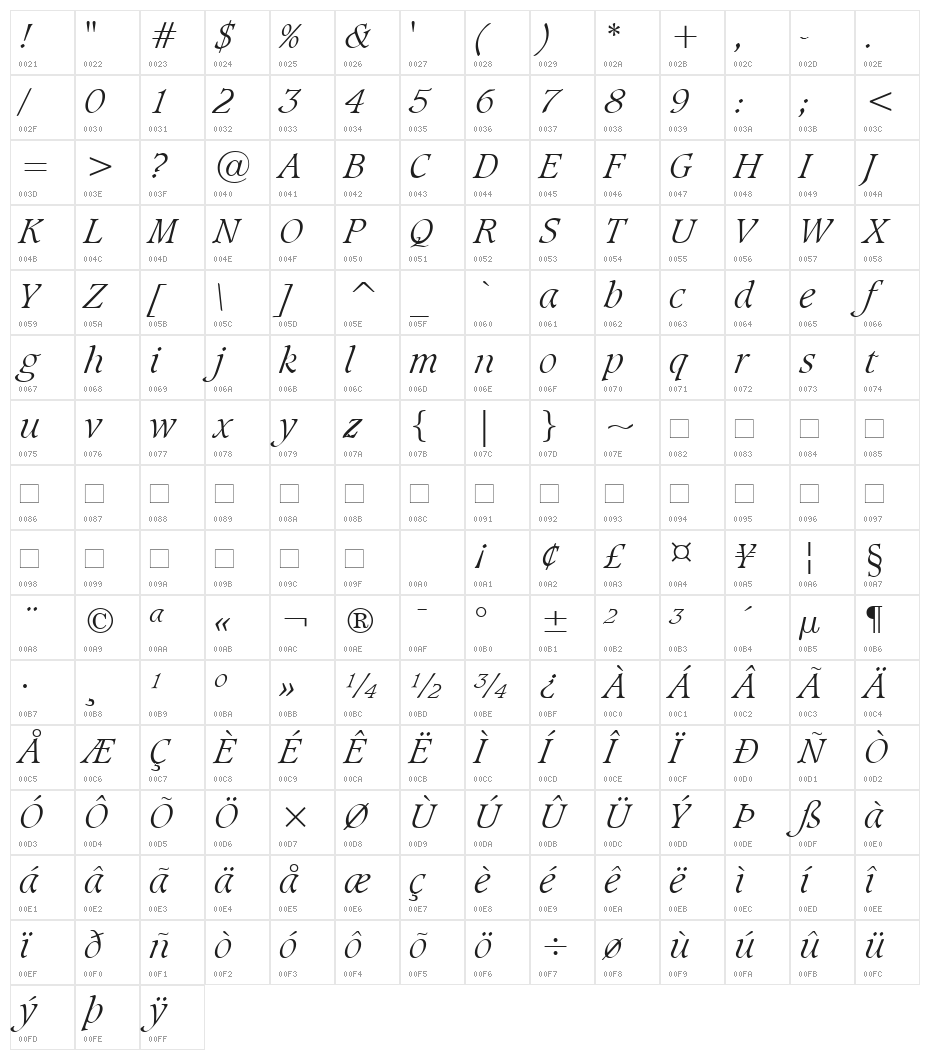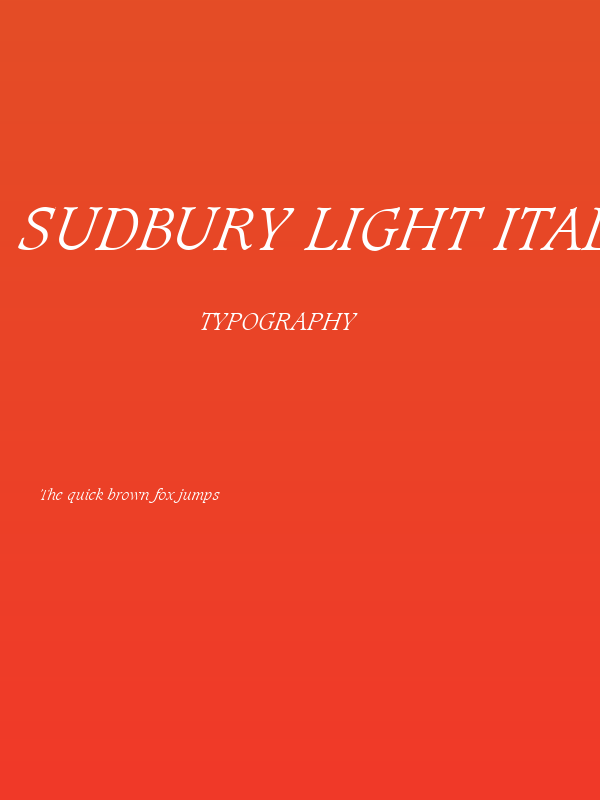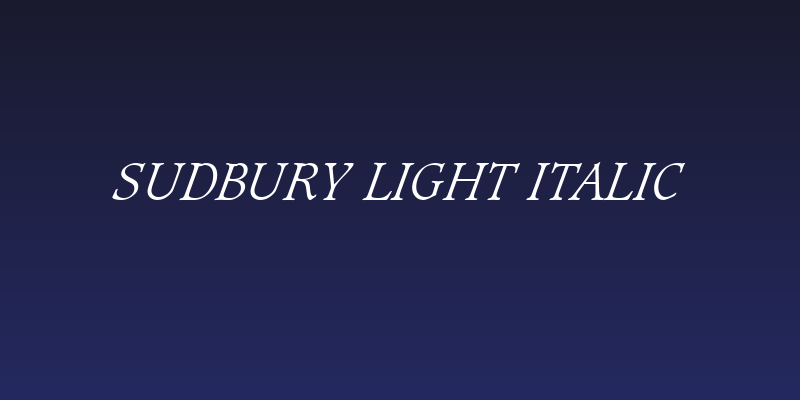
Sudbury Light Italic Font
Sudbury Light Italic Description
This elegant serif font features a light and graceful italic style, characterized by its smooth curves and refined letterforms. The slanted design adds a sense of motion and sophistication, making it ideal for conveying elegance and style. The uppercase letters are tall and slightly narrow, while the lowercase letters maintain a consistent flow with gentle curves. The numerals are well-proportioned, and the special characters are designed to complement the overall aesthetic. This font's delicate strokes and subtle contrast make it suitable for formal and artistic applications.
| Proposed Projects | Ideal for wedding invitations, luxury branding, editorial design, and elegant packaging. |